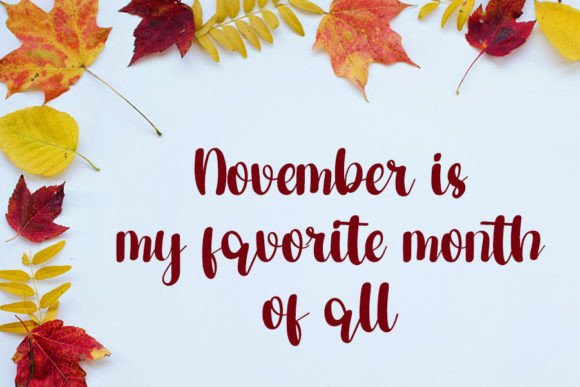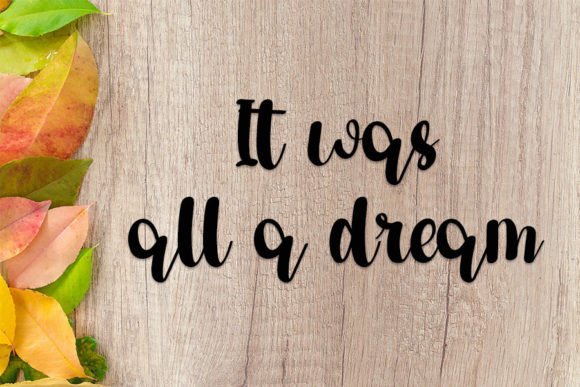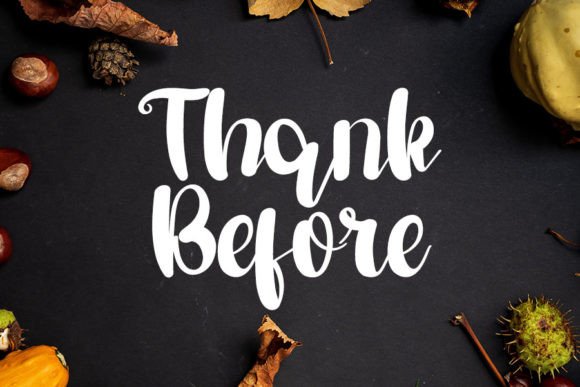
Discover the Elegance of Autumn in November Font
As the seasons change and autumn leaves start to fall, designers and crafters are on the lookout for fonts that capture the essence of this cozy time of year. If you’re searching for a stylish and contemporary handwritten font to elevate your projects, look no further than Autumn in November. This beautiful font is inspired by timeless classic calligraphy, offering a perfect blend of traditional and modern flair.
What Makes Autumn in November Font Special?
Autumn in November is more than just a font – it’s a design statement. With its impeccable form and balanced, varied characters, this font is designed to enhance the beauty of your projects. Whether you’re working on a branding campaign, a craft project, or a digital design, Autumn in November is the perfect choice for those who appreciate the finer details.
Key Features of Autumn in November Font
- Handwritten with a contemporary atmosphere: Autumn in November boasts a stylish, handwritten look that’s perfect for designers and crafters who want to add a personal touch to their work.
- Inspired by timeless classic calligraphy: This font draws inspiration from traditional calligraphy, ensuring that your projects exude elegance and sophistication.
- Balanced and varied characters: The font features a range of characters that are carefully crafted to provide a natural, effortless look.
- Impeccable form: Every letter and symbol in Autumn in November is designed with precision and attention to detail, ensuring that your projects look polished and professional.
Autumn in November is an excellent choice for designers and crafters who want to add a touch of autumnal charm to their work. Whether you’re creating:
- Branding materials: Use Autumn in November to create stunning logos, business cards, and letterheads that showcase your brand’s personality.
- Craft projects: Add a personal touch to your craft projects, such as handmade cards, gift tags, and scrapbooking pages.
- Digital designs: Use Autumn in November to create beautiful digital designs, including social media graphics, blog headers, and more.
Tips for Using Autumn in November Font
To get the most out of Autumn in November, here are a few tips:
- Pair with complementary fonts: Combine Autumn in November with other fonts to create a unique and visually appealing design.
- Experiment with colors: Take advantage of the autumnal season and try pairing Autumn in November with warm, rich colors like orange, red, and yellow.
- Play with textures: Add depth and interest to your designs by incorporating textures and patterns that evoke the feeling of autumn.
Autumn in November is a stunning handwritten font that’s perfect for designers and crafters who want to add a touch of elegance and sophistication to their work. With its impeccable form, balanced characters, and contemporary atmosphere, this font is sure to become a favorite in your design arsenal. So why wait? Download Autumn in November today and start creating beautiful, autumn-inspired designs that will leave a lasting impression.